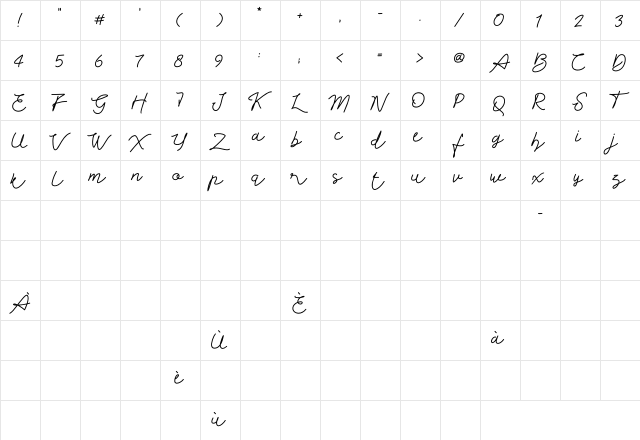
Flowee Regular
Design Context for Flowee Typeface
Flowee is a composed and adaptable typeface that performs quietly and consistently across a wide range of design contexts.